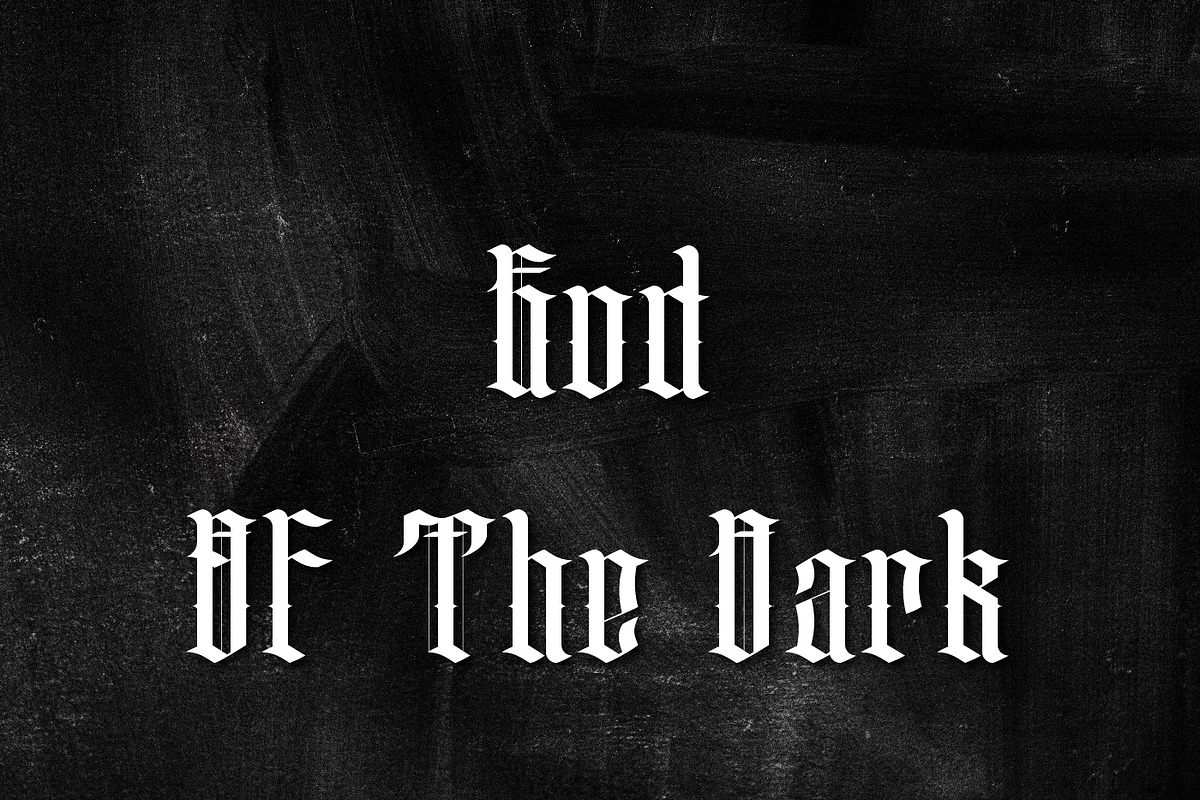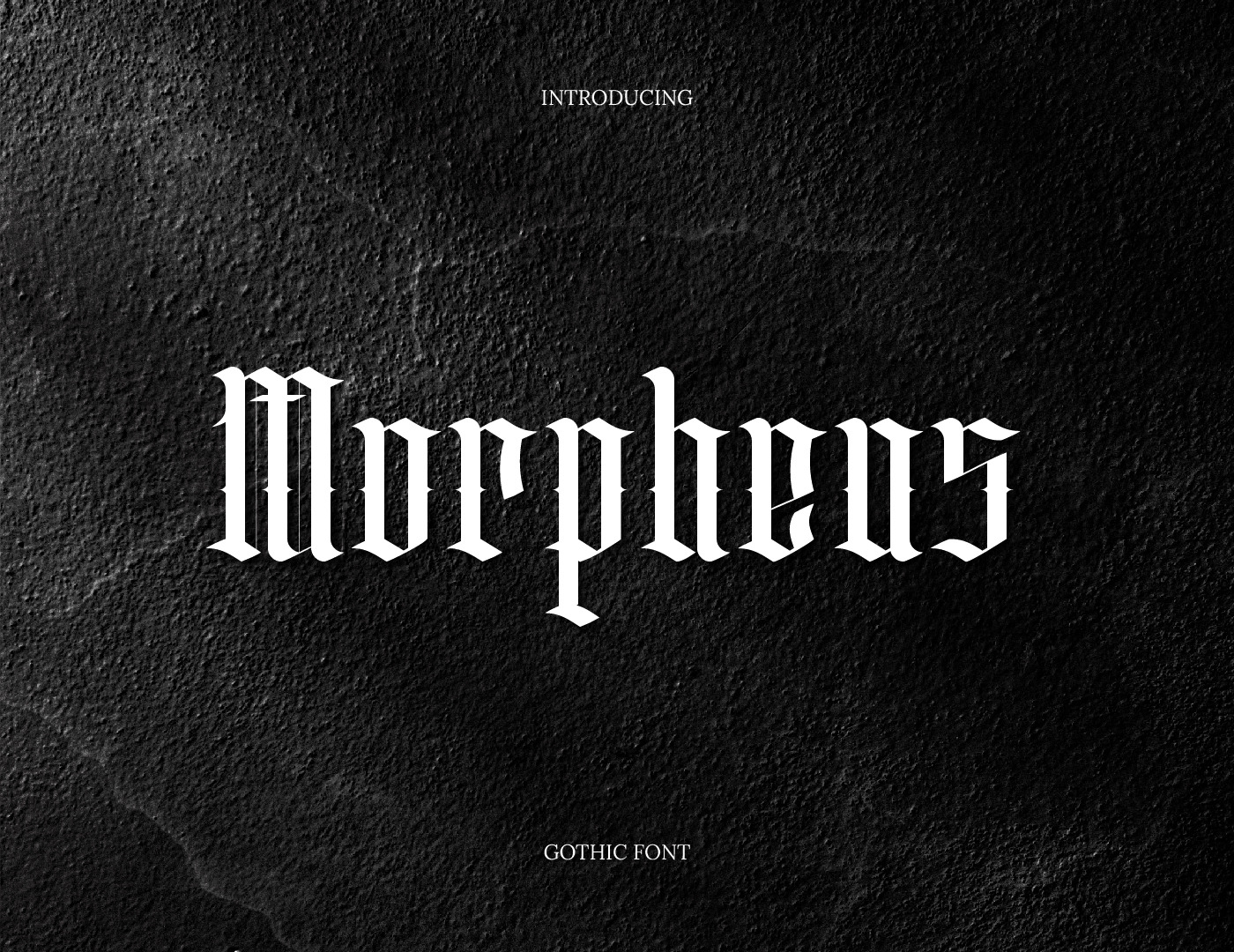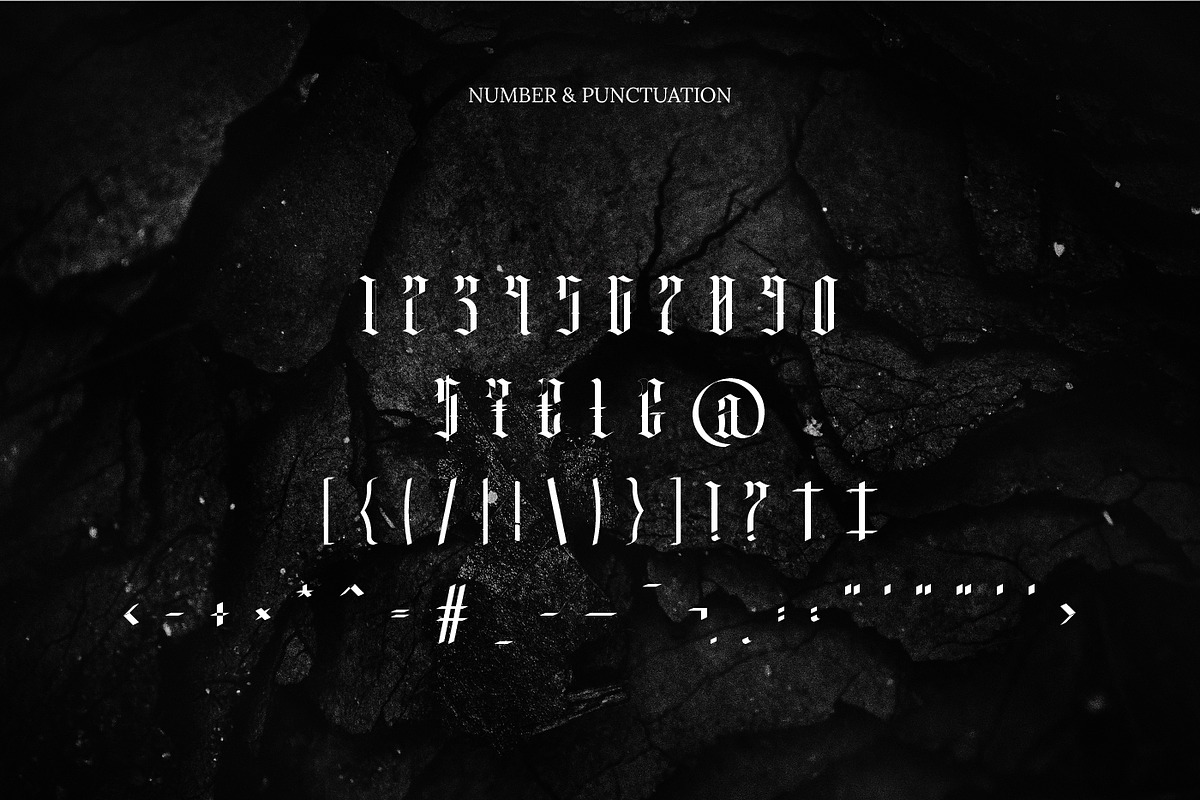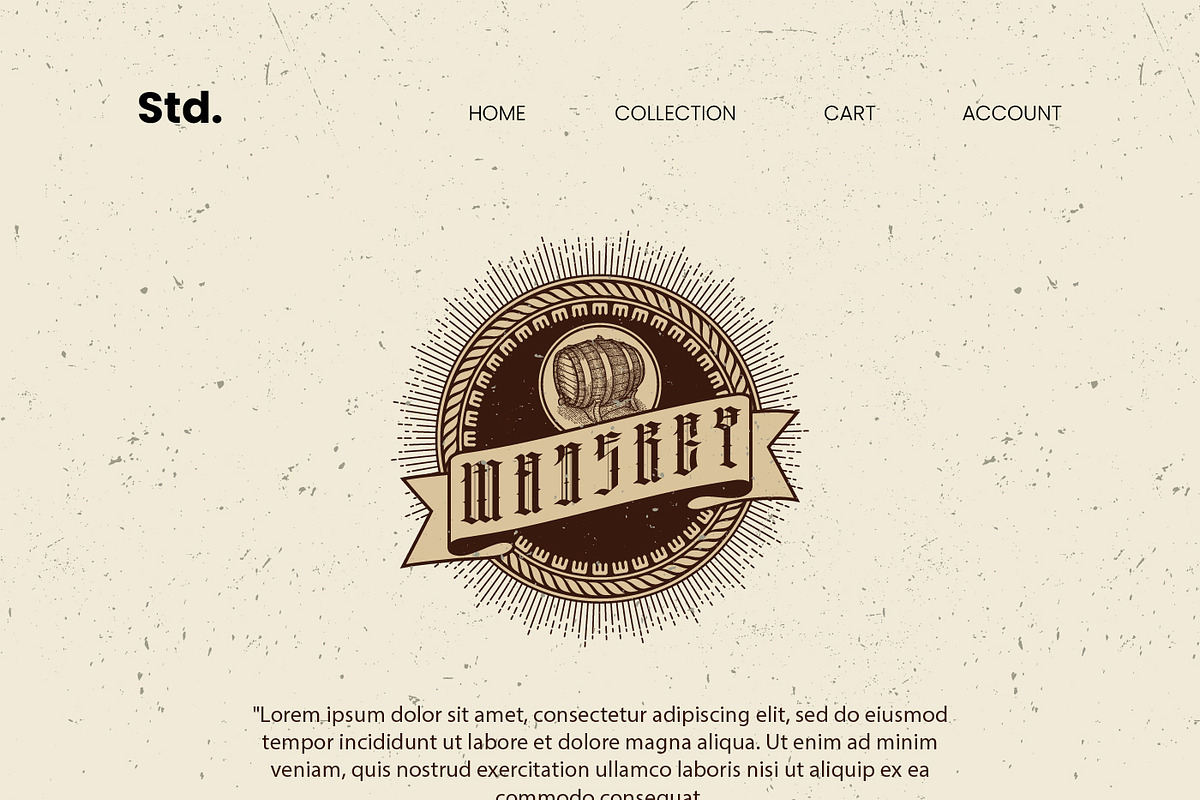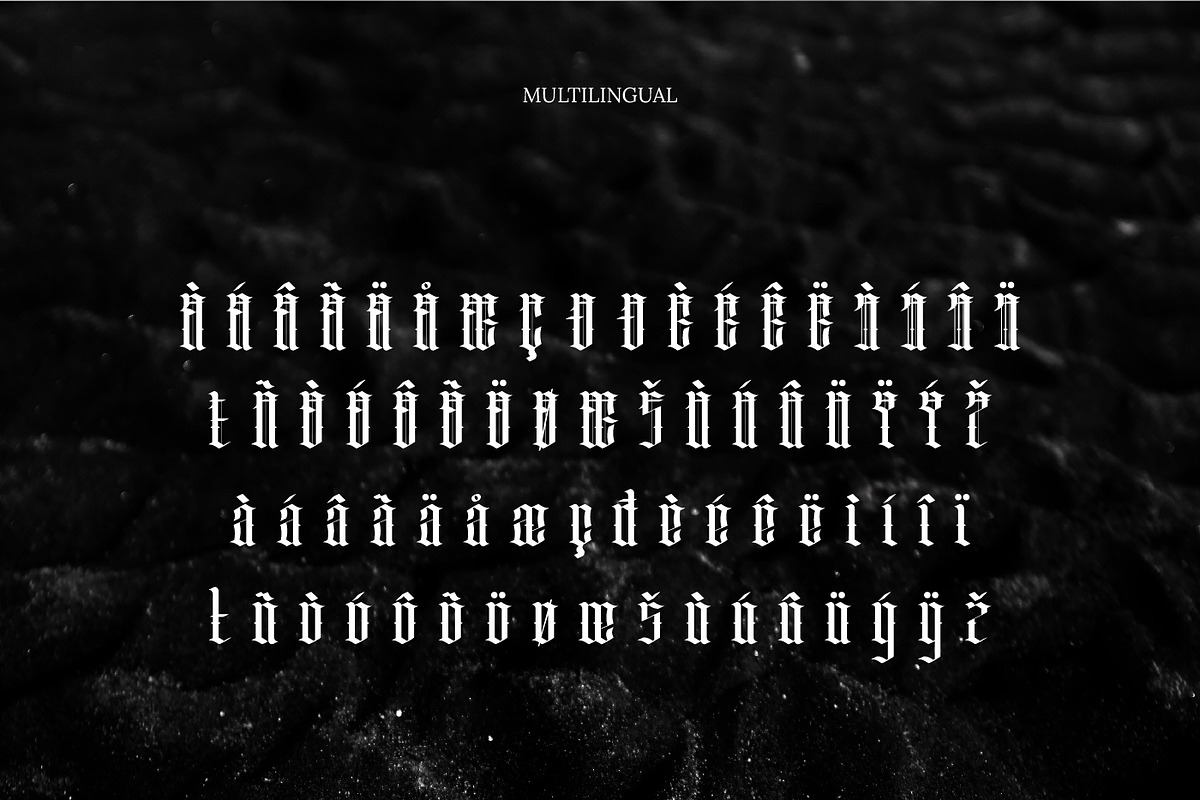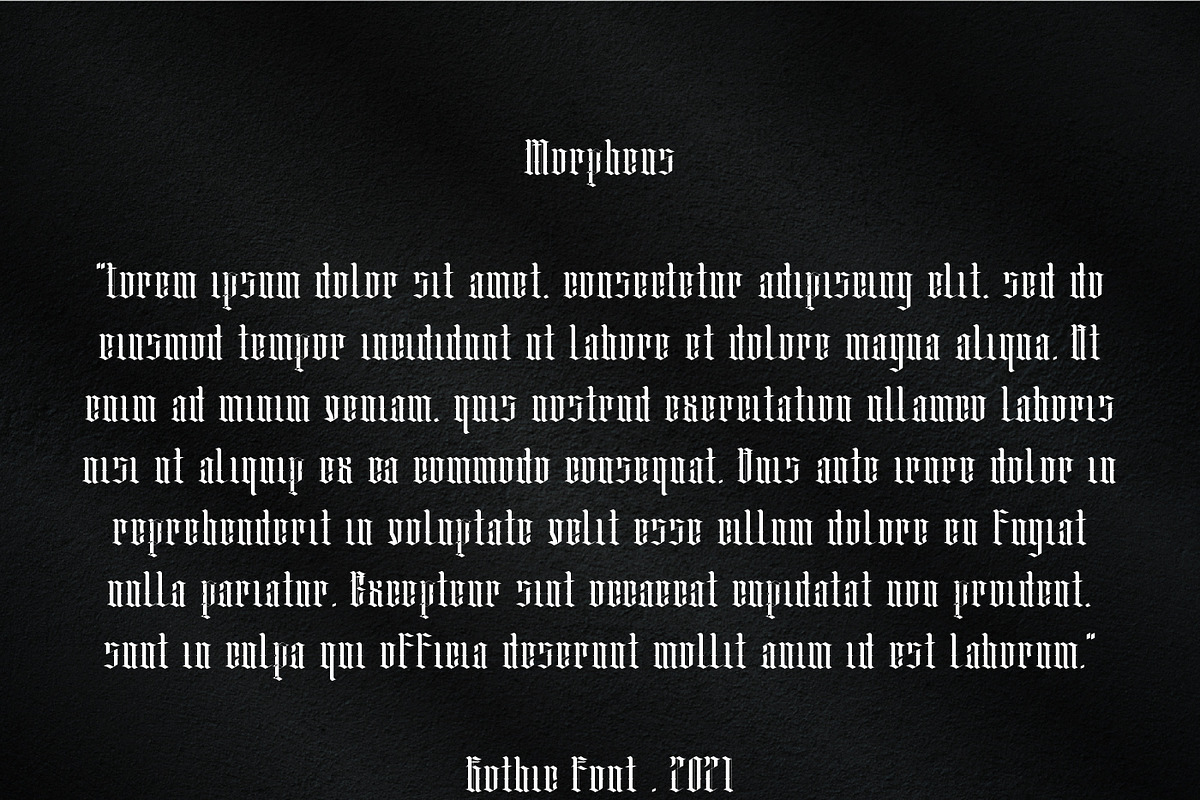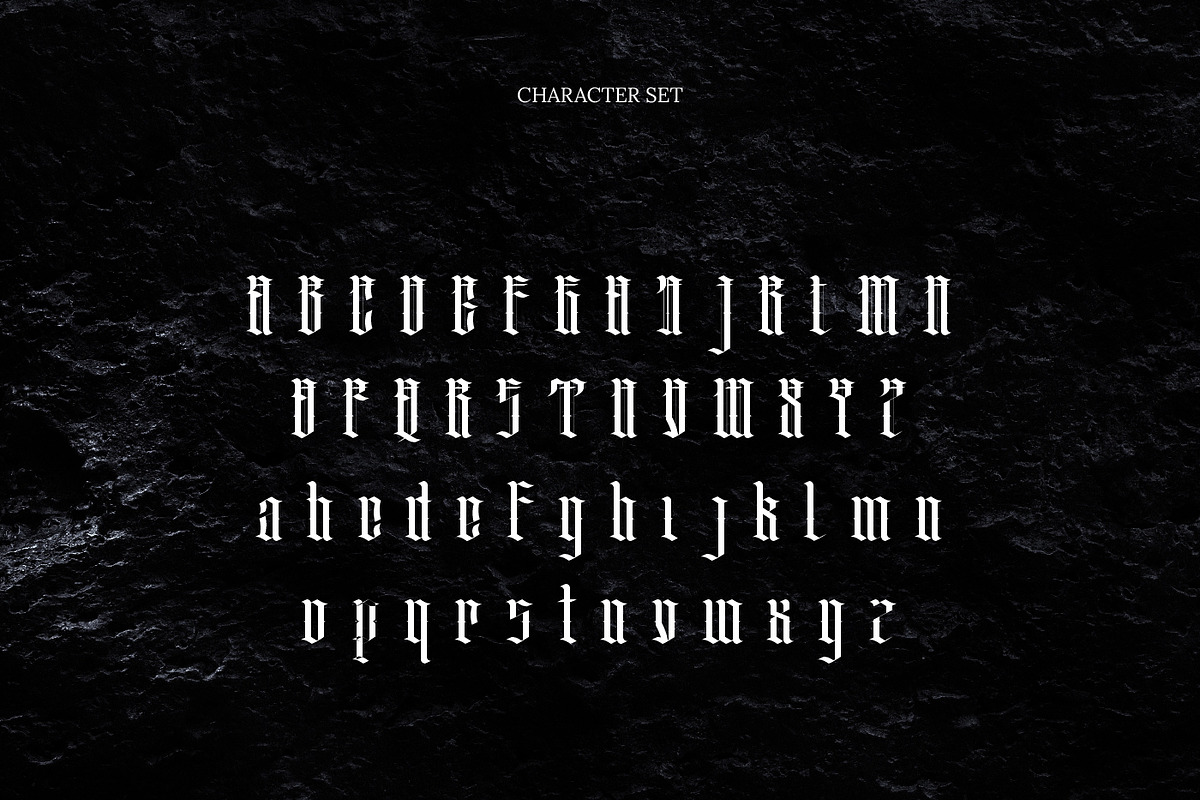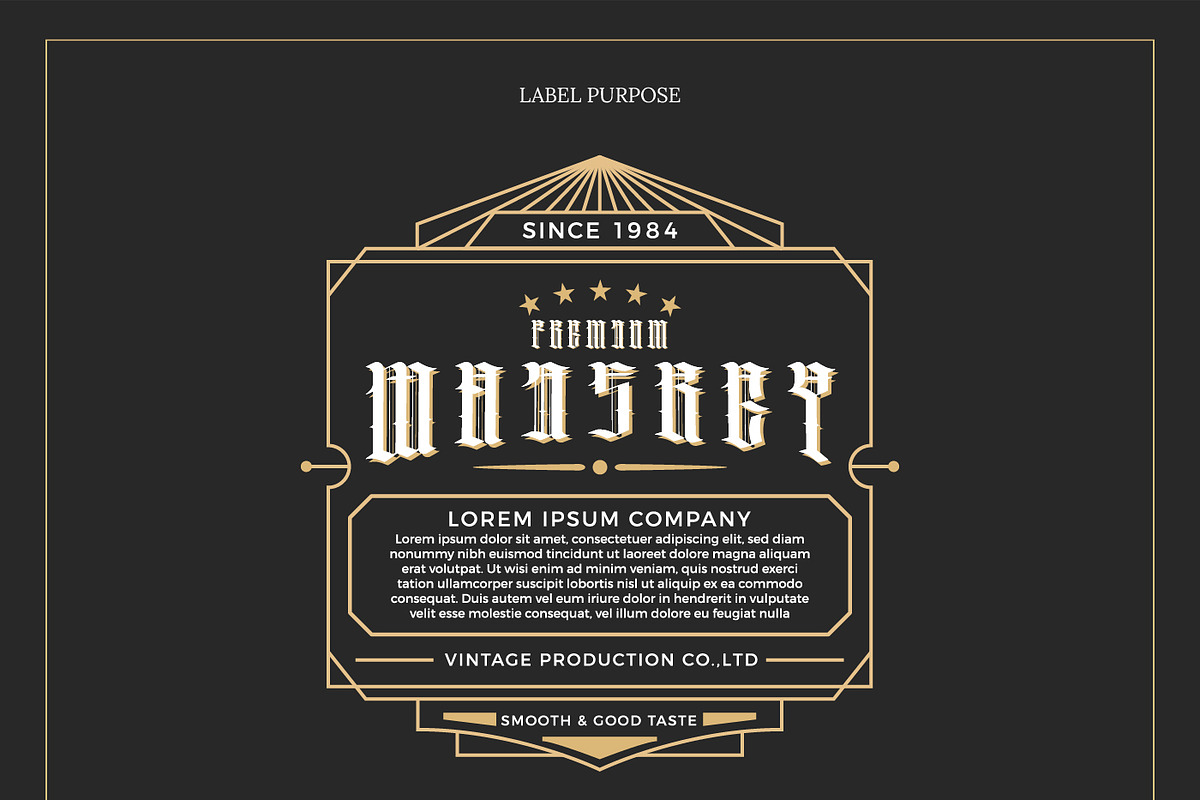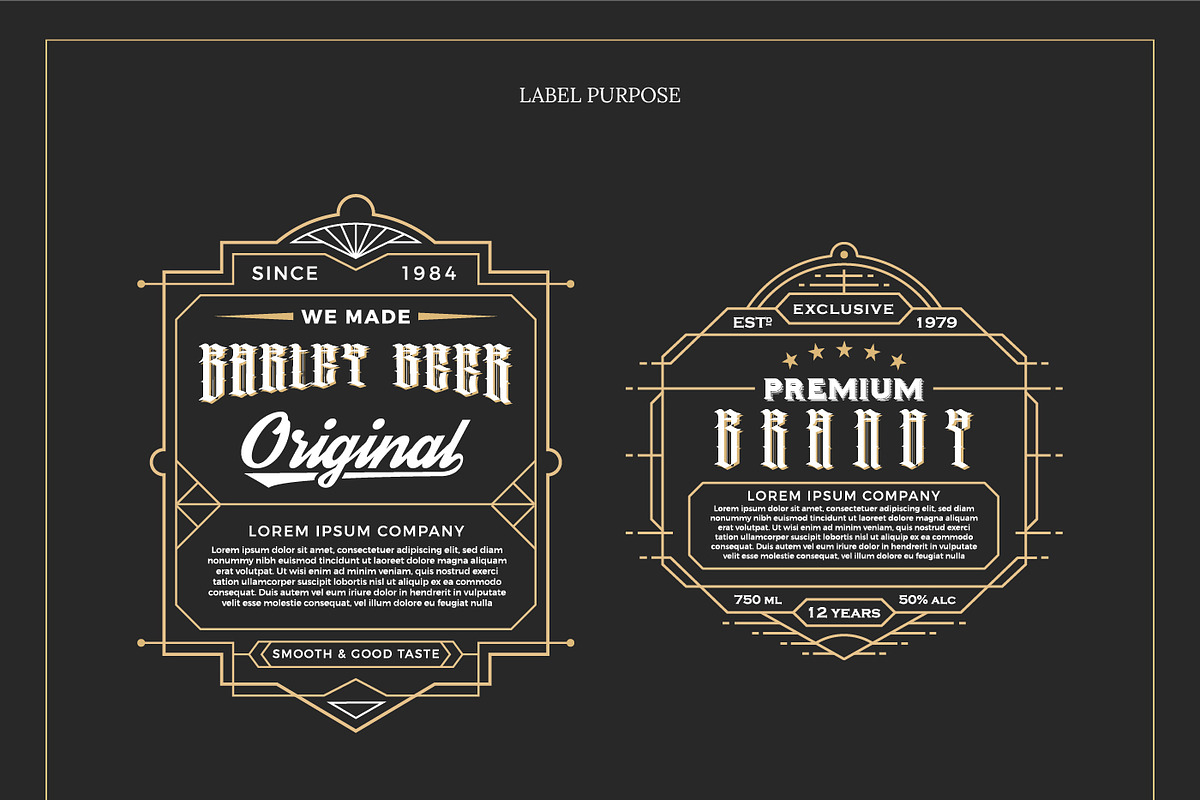
Morpheus Blackletter Typeface
Morpheus is type adaptation of Blackletter or as known as Gothic font that use unique line and detail on it as commonly Gothic fonts used to. It inspired by some types of old western calligraphy which usually use on book, letter, murals, and another written. It has great thickness consistency with some unique details that make "Morpheus" look sturdy also strengthen characteristic on "Morpheus" itself. It brings tough, vintage, and modern vibes, so it appropriate used for logo, fashion, label, poster, decoration, etc. "Morpheus" named inspiring by The Primordial Greek God of Dream, "Morpheus". The God of Dreams, "Morpheus" depicted with wings on his side, so that, "Morpheus" font has detail built like wings on some sides itself.